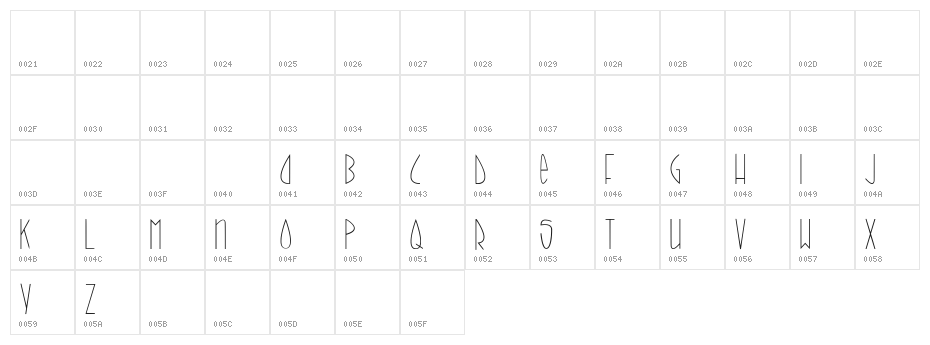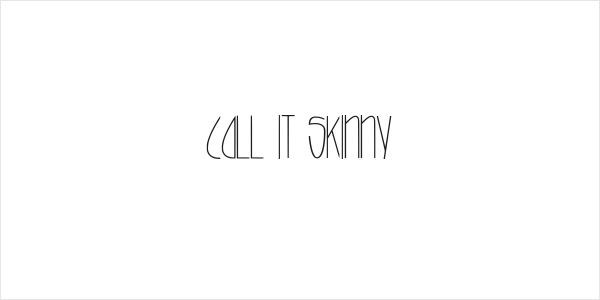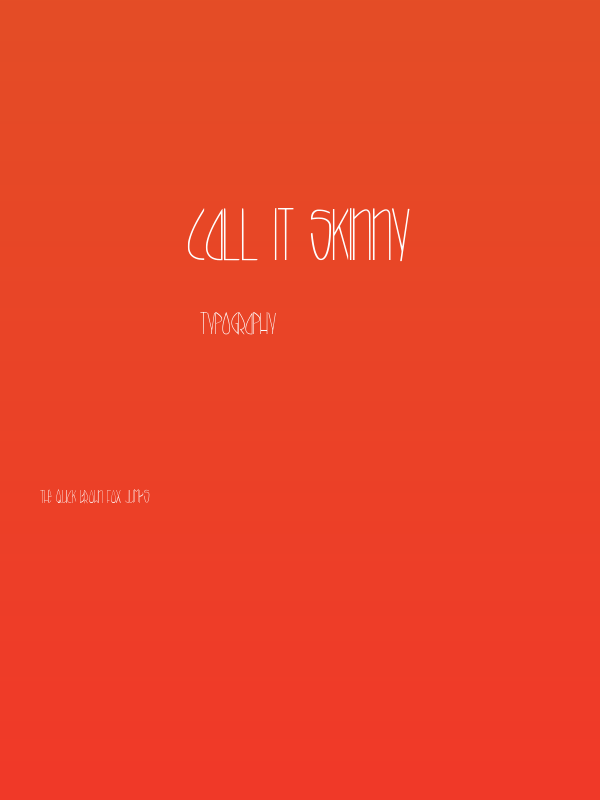
call it skinny Font
call it skinny Description
This font features an ultra-thin, elongated design with a distinctively modern and geometric appearance. The characters are tall and narrow, giving an elegant and sophisticated look. The strokes are consistent in width, contributing to a clean and minimalist aesthetic. The font's unique style is characterized by its sharp angles and straight lines, which create a sense of precision and clarity. The uppercase letters exhibit a uniform height, while the lowercase letters maintain a similar slender form, enhancing the overall cohesion of the typeface. The numerals and special characters are designed to match the sleek and streamlined appearance of the alphabet, ensuring visual harmony across all elements.
| Proposed Projects | Ideal for fashion branding, luxury product packaging, editorial headlines, and minimalist graphic design projects. |